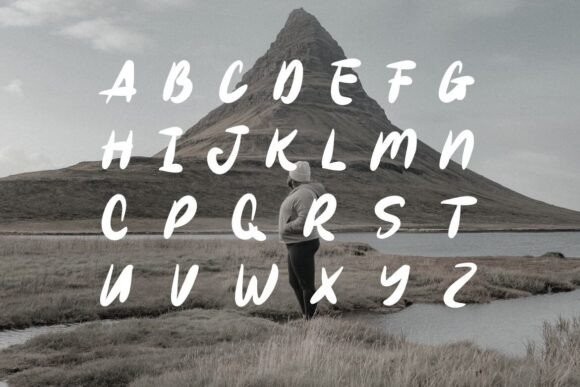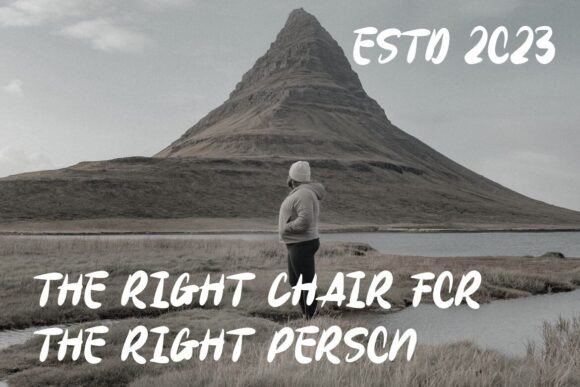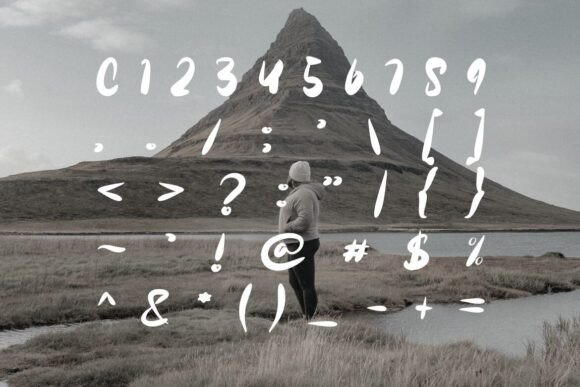
Congklak Playing Font: A Sweet and Friendly Handwritten Font for Your Designs
Congklak Playing is a beautiful, sweet, and friendly handwritten font that can add a personal touch to your designs. Its natural and unique style makes it incredibly fitting to a large pool of designs, from playful and creative projects to more elegant and sophisticated ones. The only limit is your imagination!
What Makes Congklak Playing Font Special?
Congklak Playing font is a handcrafted font that features a distinctive and charming handwritten style. Its uniqueness lies in its natural and effortless look, which makes it perfect for designs that require a personal and friendly touch. The font is designed to be highly versatile, making it suitable for a wide range of projects, including:
- Playful and creative designs, such as children’s books, games, and activities
- Elegant and sophisticated designs, such as wedding invitations, cards, and stationery
- Branding and packaging designs that require a friendly and approachable feel
- Digital and print designs, including social media graphics, blogs, and magazines
Key Features of Congklak Playing Font
Congklak Playing font comes with several key features that make it an excellent choice for designers and crafters:
- Unique and Handwritten Style: The font features a distinctive handwritten style that adds a personal touch to your designs.
- Natural and Effortless Look: The font has a natural and effortless look that makes it perfect for designs that require a friendly and approachable feel.
- Highly Versatile: The font is suitable for a wide range of projects, from playful and creative designs to elegant and sophisticated ones.
- Easy to Read: The font is clear and easy to read, making it perfect for designs that require a high level of legibility.
How to Use Congklak Playing Font in Your Designs
Using Congklak Playing font in your designs is easy and straightforward. Here are some tips to get you started:
- Pair it with Other Fonts: Congklak Playing font pairs well with other fonts, including serif and sans-serif fonts. Experiment with different font combinations to create unique and interesting designs.
- Use it for Headings and Titles: The font is perfect for headings and titles, where its unique and handwritten style can add a personal touch to your designs.
- Add it to Your Digital and Print Designs: Congklak Playing font is suitable for both digital and print designs. Use it in your social media graphics, blogs, magazines, and other designs that require a friendly and approachable feel.
Why Designers and Crafters Love Congklak Playing Font
Congklak Playing font has become a favorite among designers and crafters due to its unique and handwritten style, natural and effortless look, and high versatility. Here are some reasons why:
- Perfect for Creative Projects: The font is perfect for creative projects, such as children’s books, games, and activities, where its playful and friendly style can shine.
- Great for Branding and Packaging Designs: Congklak Playing font is suitable for branding and packaging designs that require a friendly and approachable feel.
- Easily Customizable: The font is easily customizable, allowing you to adjust its size, color, and style to fit your design needs.
Congklak Playing font is a sweet and friendly handwritten font that can add a personal touch to your designs. Its natural and unique style makes it incredibly fitting to a large pool of designs, from playful and creative projects to more elegant and sophisticated ones. With its key features, versatility, and ease of use, Congklak Playing font is an excellent choice for designers and crafters looking to add a friendly and approachable feel to their designs.